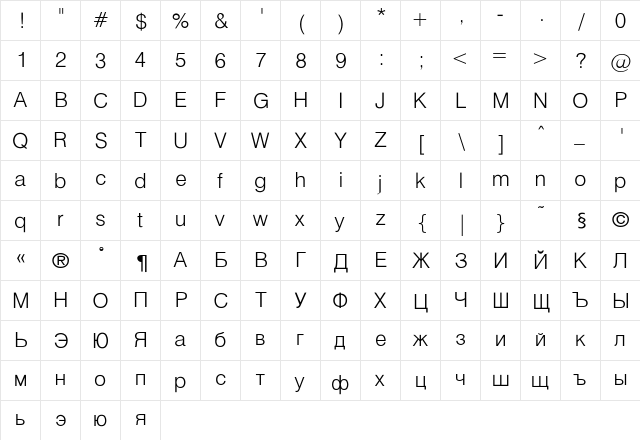
Helvetica_Light-Normal Regular
Design Context for Helvetica_Light-Normal Typeface
Helvetica_Light-Normal takes a measured approach to typography — its balanced proportions and neutral character make it a reliable workhorse for both digital and print work. The delicate stroke weight brings airiness and refinement to layouts.